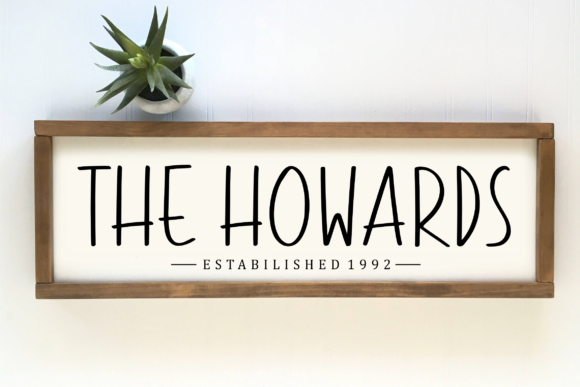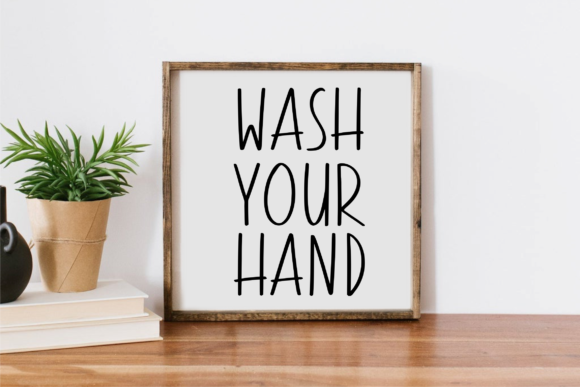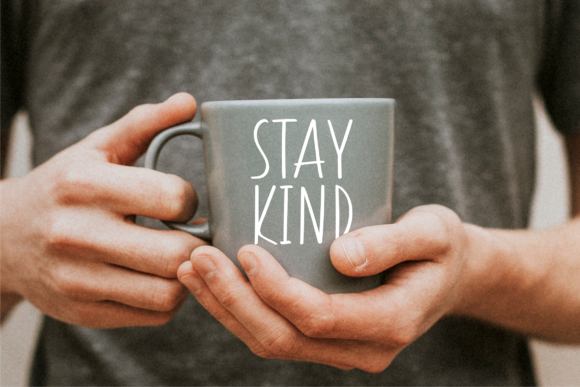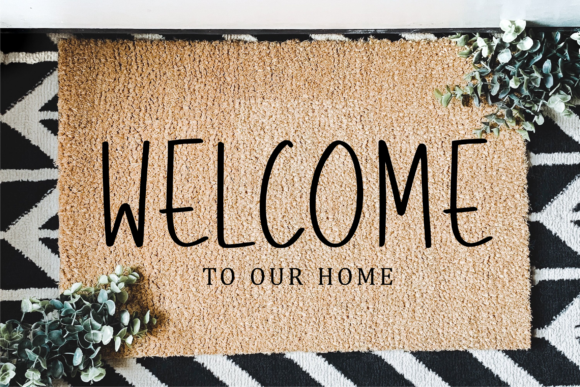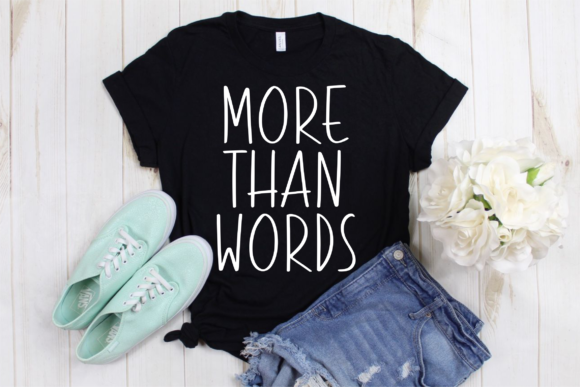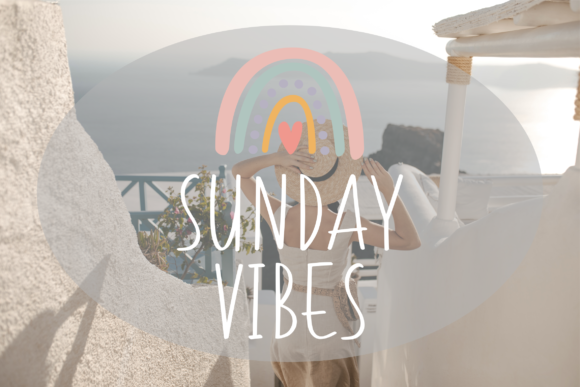
Introduction to Farmgarden Font
Farmgarden is a tall and skinny looking handwritten font.
It is perfect for product packaging, branding project, magazine covers, social media, wedding, or just used to express words above the background .
Key Features of Farmgarden Font